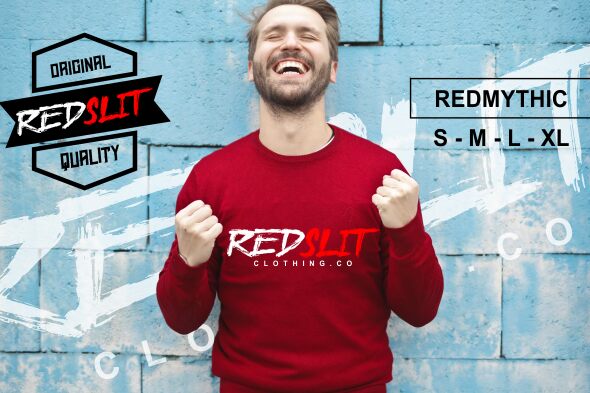
Introducing Redslit, the bold and captivating brush font designed by ©zamjump. With its artistic strokes and eye-catching curves, this font is perfect for creating striking headlines, posters, social media graphics, logos and more. The bold weight of Redslit makes it ideal for projects that require a strong visual impact while its brush style lends an organic feel to any design. Whether you're working on a branding project or an event poster, Redslit will help you stand out from the crowd with its unique personality and creative flair. Get your hands on Redslit today and start bringing your designs to life!
Redslit — Prezentacja czcionki